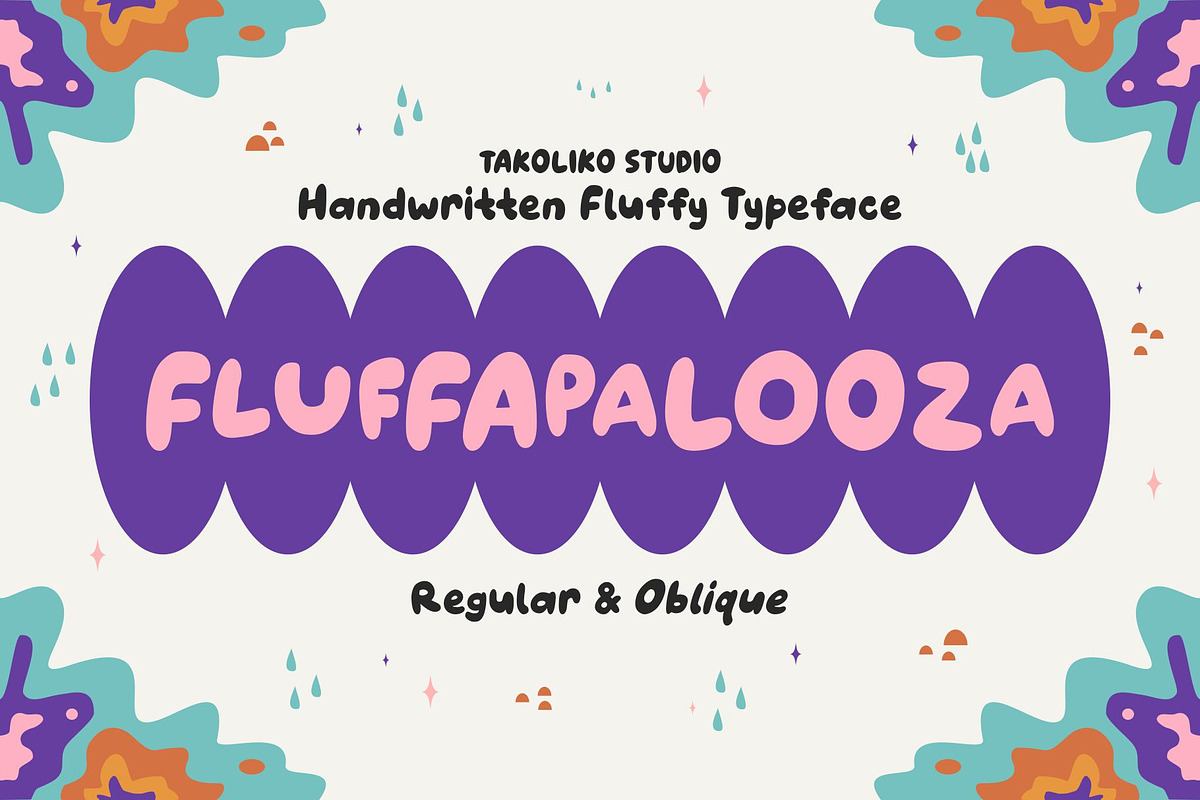
Fluffapalooza Handwritten Font Free Download is a fun, bubbly typeface bursting with personality. With its playful curves and cheerful, hand-drawn feel, this font is perfect for kids' designs, party invitations, quirky branding, fun merchandise, and anything that calls for a dose of joy and creativity. It radiates friendliness and instantly makes your designs feel more lighthearted and approachable.
This font is all about fun—but it’s also highly readable, making it great for both headlines and smaller text in whimsical layouts. Whether you're working on crafts, greeting cards, or colorful social media posts, Fluffapalooza adds that extra spark of happiness.